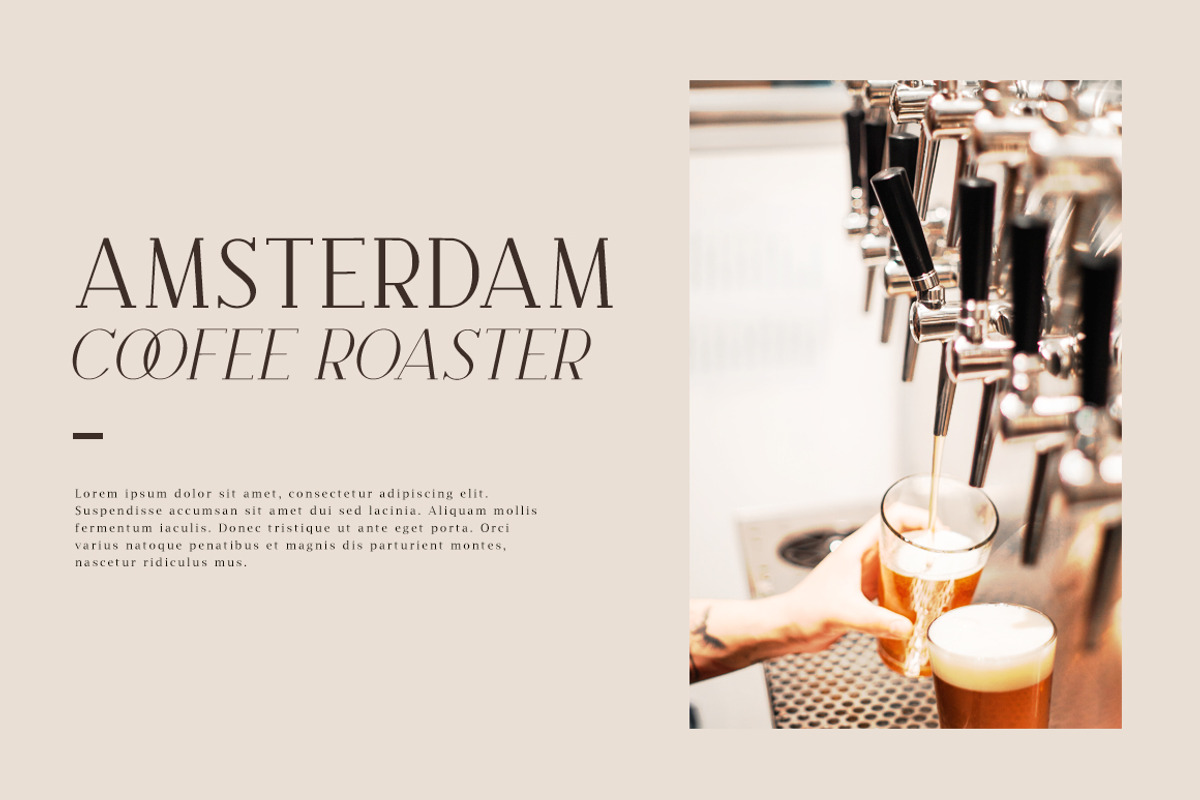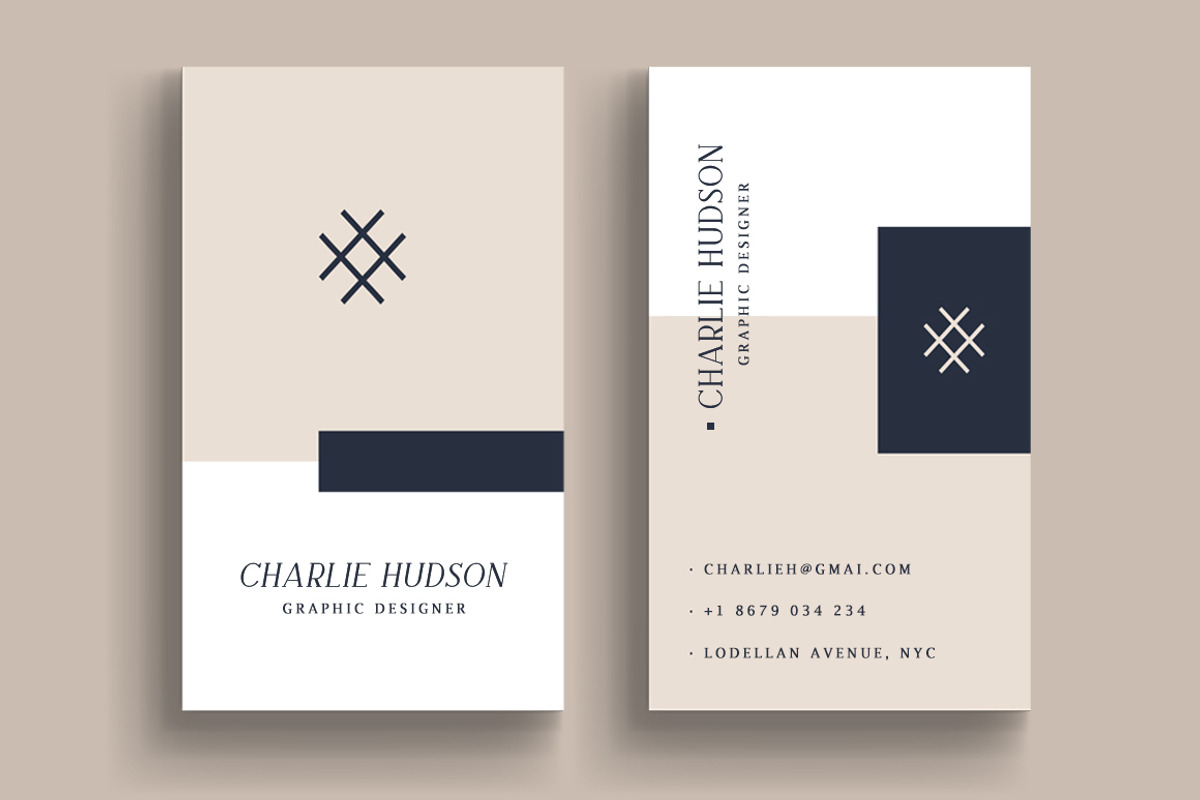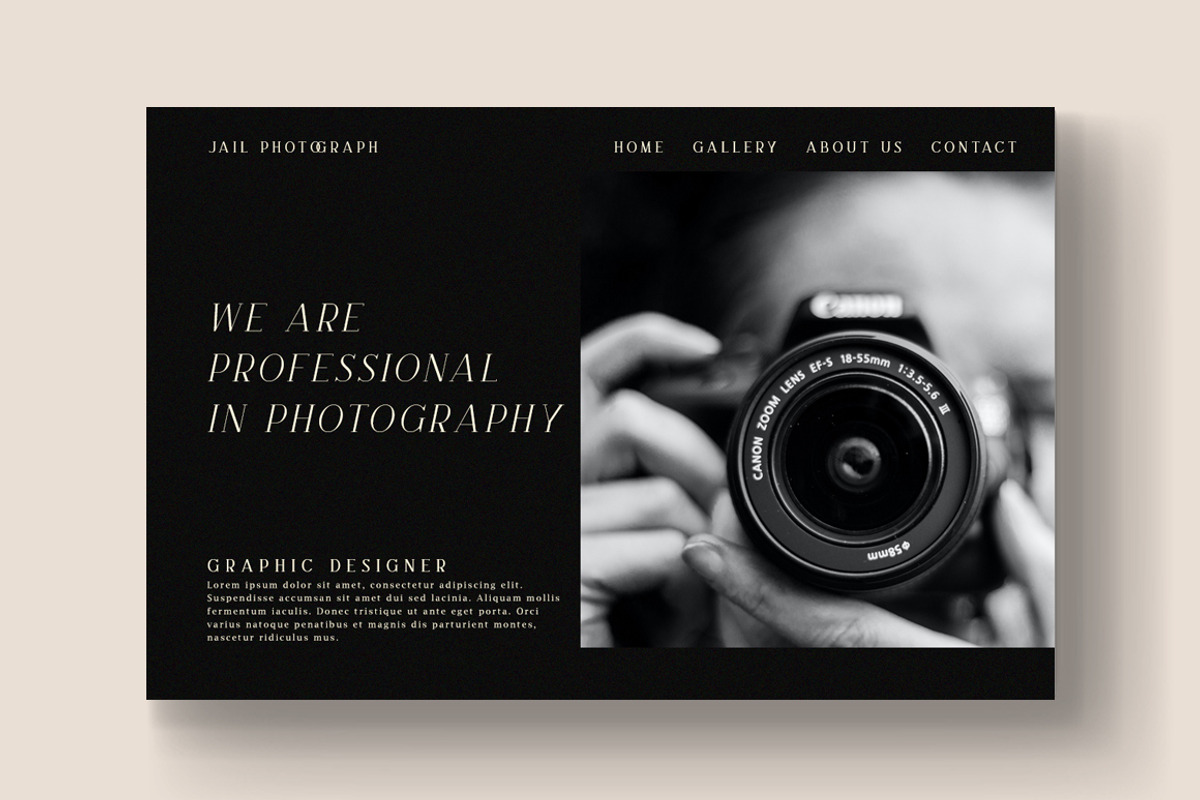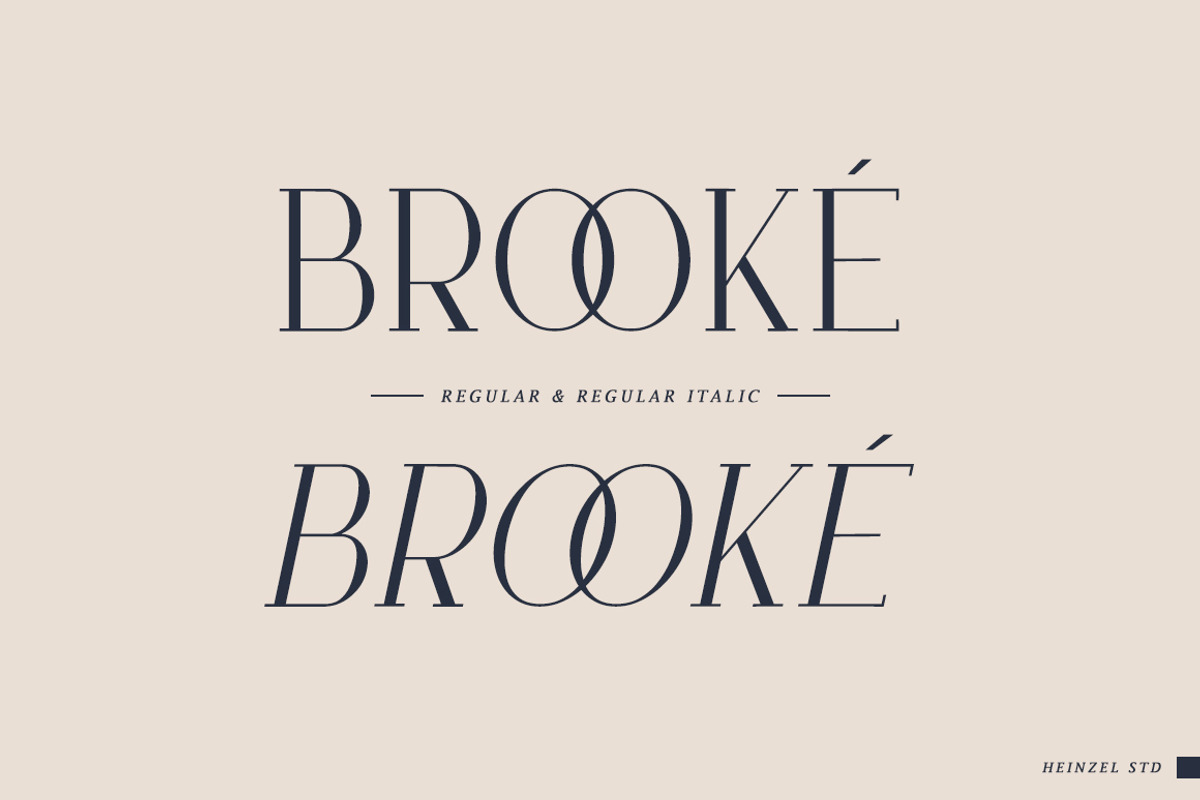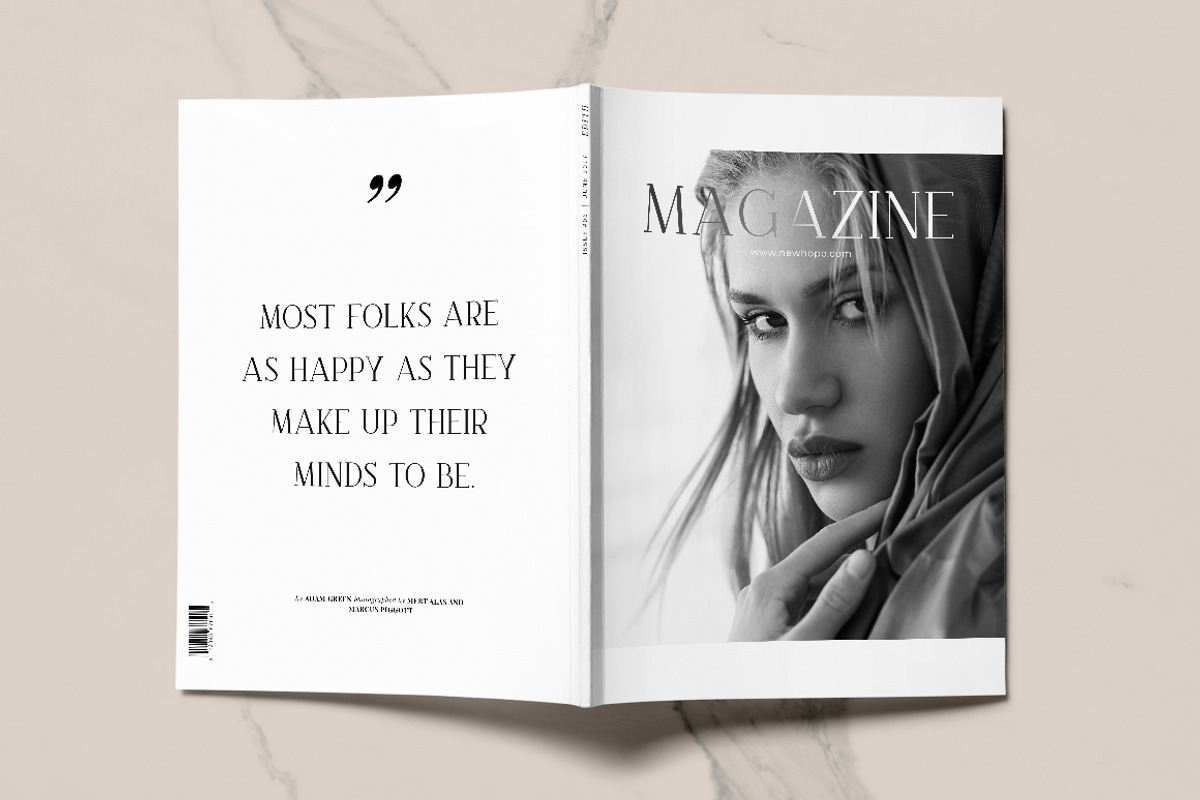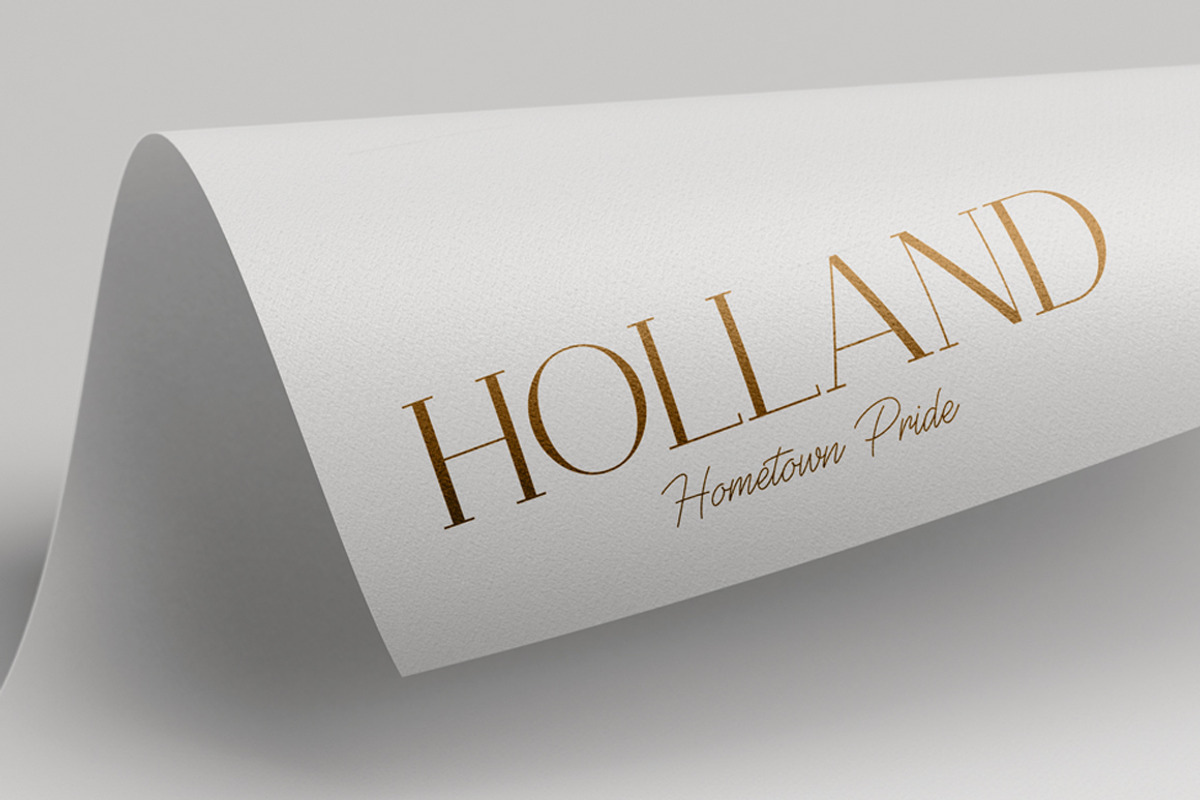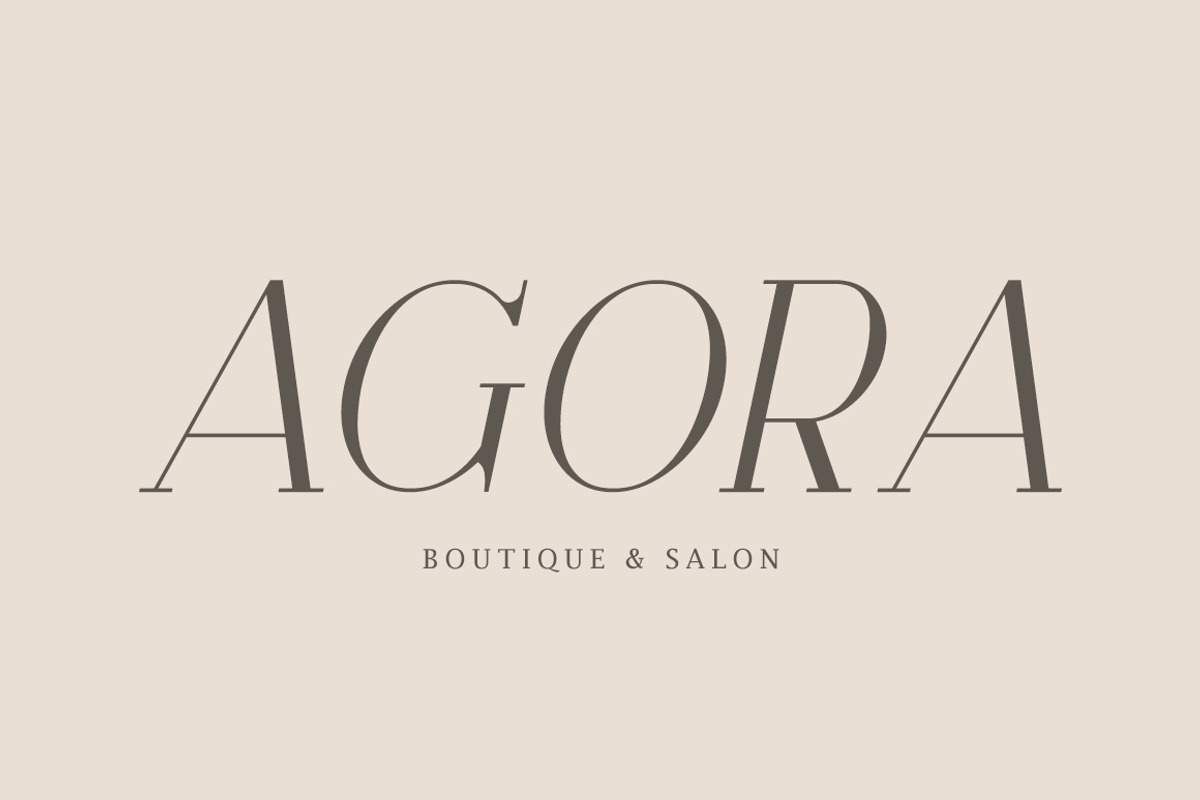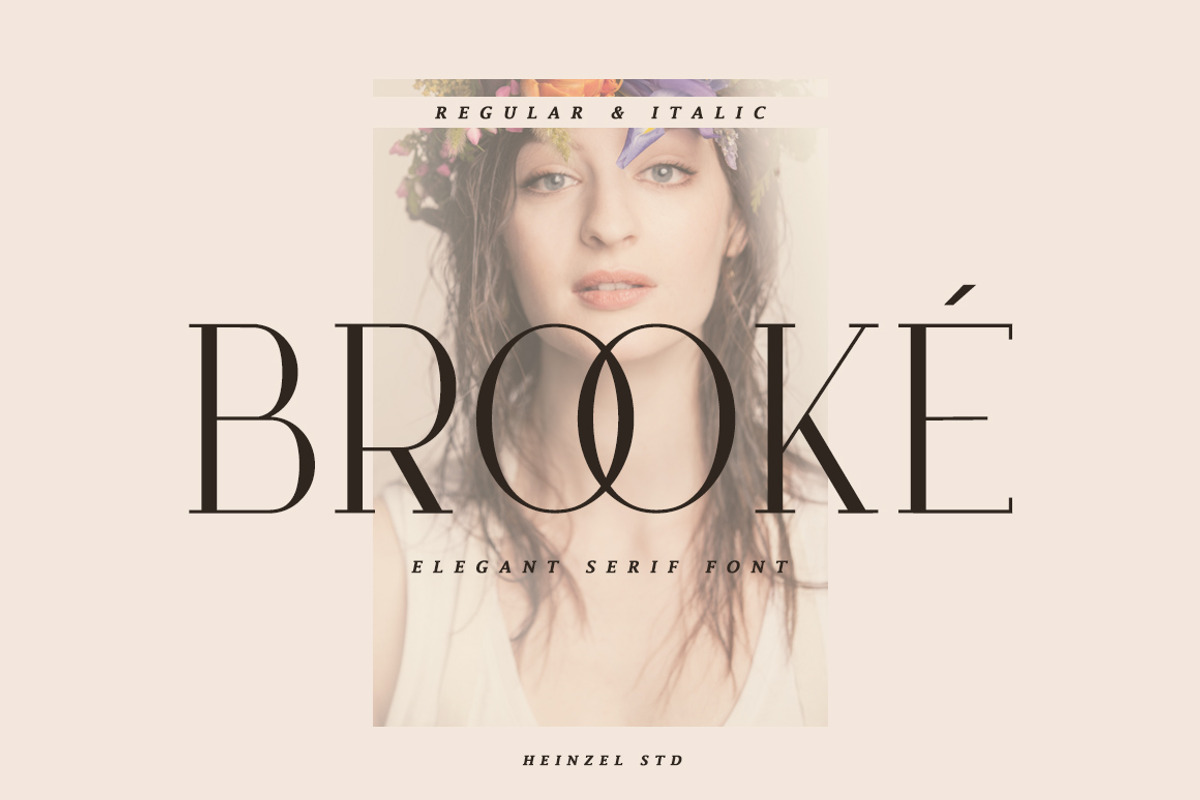
Brooke - Minimalist Serif Font
Brooke – Minimalist Serif Font (3 Weights)
Brooke is a refined minimalist serif font designed to bring timeless elegance and modern sophistication to your projects. Available in 3 versatile weights, this font offers the perfect balance of classic charm and contemporary style, making it ideal for branding, editorial design, packaging, fashion projects, invitations, and luxury logos.
With its clean lines, graceful curves, and high readability, Brooke enhances both digital and print designs. Whether you’re creating bold headlines or delicate body text, its stylish simplicity adapts beautifully to any creative concept.
Perfect for designers seeking a luxury serif font, Brooke combines minimalism with elegance, ensuring your work always stands out.
1. Brooke, Regular, Bold, Black, and Italic version, serif font (ALL CAPS), numerals and more punctuations.
Brooke - Minimalist Serif Font by Heinzel Std fits naturally into Branding, posters, packaging, typography.